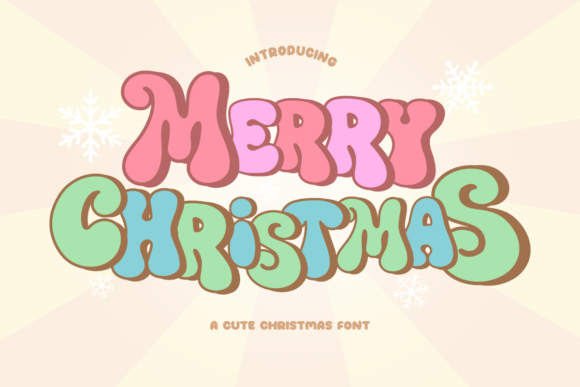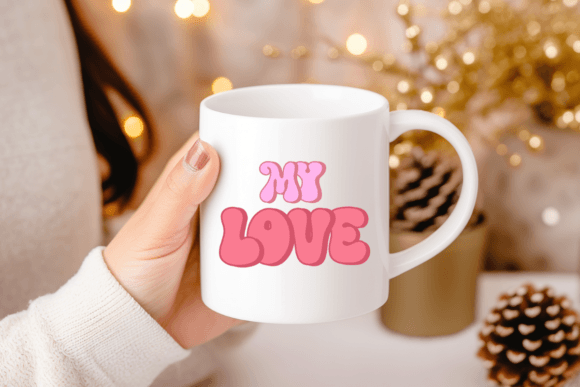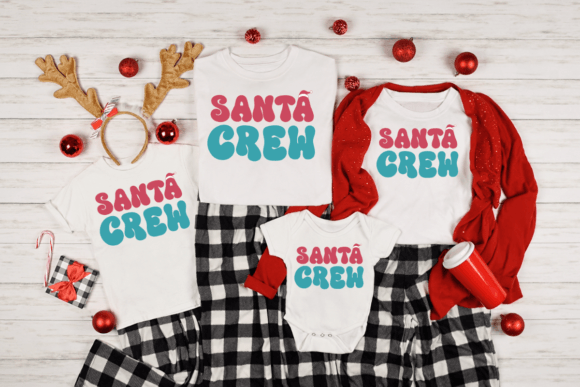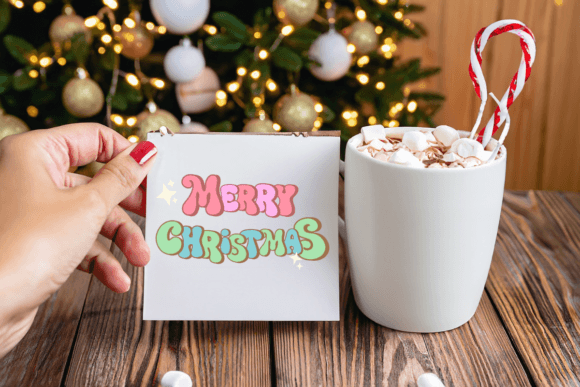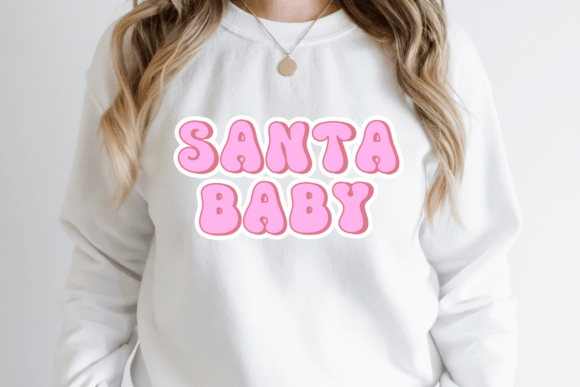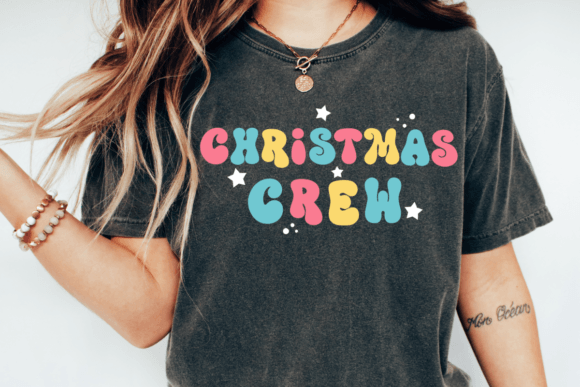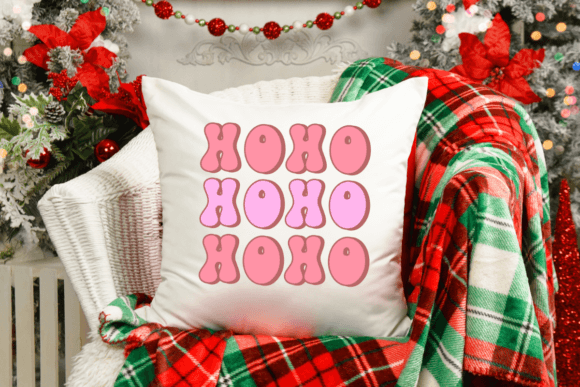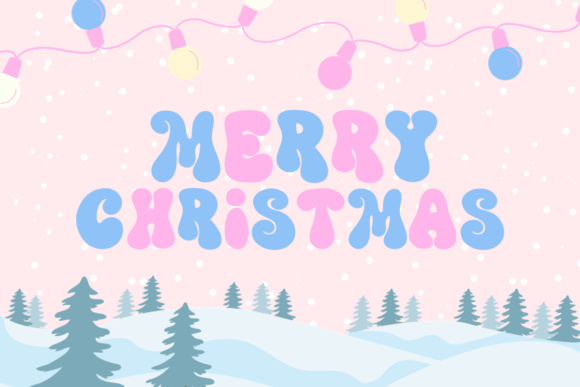
Merry Christmas Font
Merry Christmas Font is a festive typeface perfect for holiday projects. Whether you’re designing greeting cards, banners, social media graphics, or marketing materials, this font adds a touch of Christmas charm to your text, spreading joy and warmth during the holiday season.